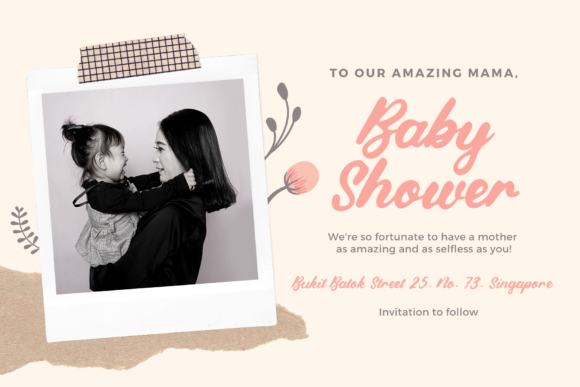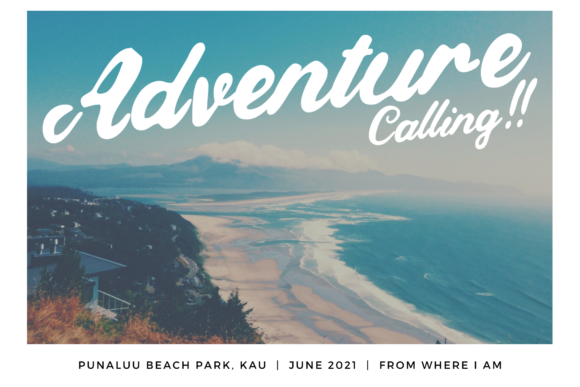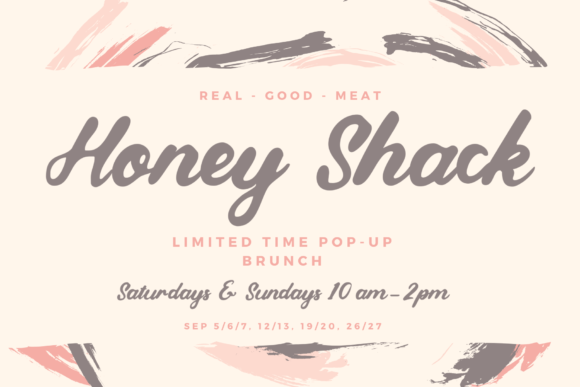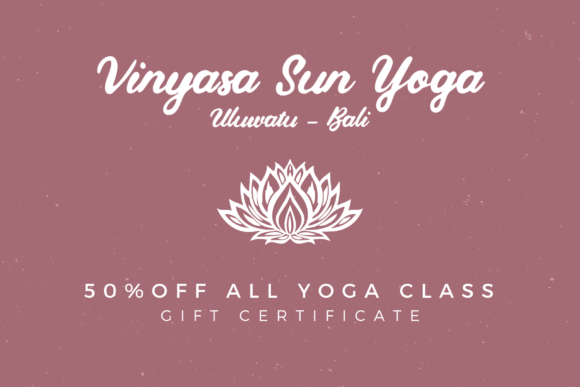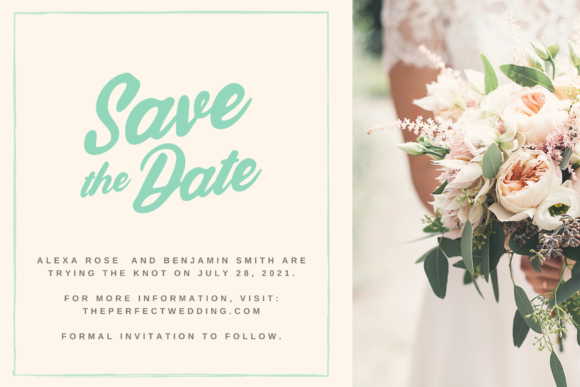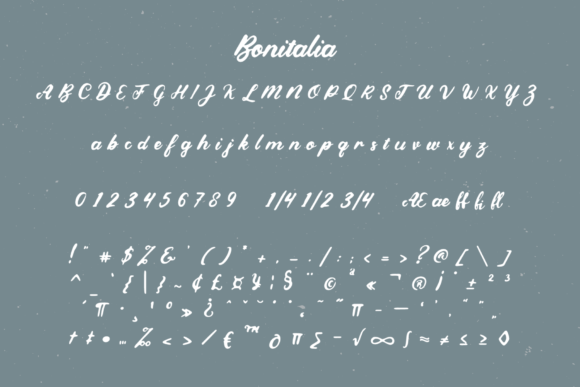
The Designer’s Delight: Bonitalia Font
I’ll never forget the time I was working on a project for a client who wanted a bold, eye-catching font to make their brand stand out. I spent hours scouring the internet for the perfect font, but nothing seemed quite right. That was until I stumbled upon Bonitalia – a fun and bold hand-drawn script that immediately caught my attention. In this article, I’ll share my experience with Bonitalia, its features, and how to make the most of it in your designs.
A First Impression: What I Love About Bonitalia
Bonitalia is a beautifully crafted font that is sure to make your text look stunning. Here are some of the things I love about it:
- ✨ Unique and playful design: Every letter has been carefully crafted to give the font a distinctive and charming feel.
- ✅ Highly legible: Despite its bold and playful nature, Bonitalia is surprisingly easy to read, making it perfect for use in a variety of design projects.
- 💫 Versatile: Whether you’re working on a logo, a poster, or a social media graphic, Bonitalia is sure to add a touch of personality to your design.
While Bonitalia is an excellent font, there are a few quirks to be aware of:
- 🤔 Limited use in formal designs: Due to its playful nature, Bonitalia may not be the best choice for formal or professional designs, such as corporate reports or academic papers.
- ⚠️ Some letters may require adjustment: Depending on the word or phrase you’re using, you may need to adjust the spacing or kerning of certain letters to get the best results.
The Story Behind Bonitalia
Bonitalia was designed by a team of creatives who wanted to create a font that would add a touch of personality to any design project. With its unique and playful design, Bonitalia is the perfect choice for designers who want to make their text stand out.
- Q: What type of designs is Bonitalia best suited for?
- A: Bonitalia is perfect for designs that require a bold and playful font, such as social media graphics, posters, and logos.
- Q: Does Bonitalia come with OpenType features?
- A: Yes, Bonitalia includes OpenType features such as glyphs and stylistic alternates, which can be accessed in design programs like Adobe Photoshop/Illustrator.
- Q: Is Bonitalia easy to read?
- A: Yes, despite its bold and playful nature, Bonitalia is surprisingly easy to read, making it perfect for use in a variety of design projects.